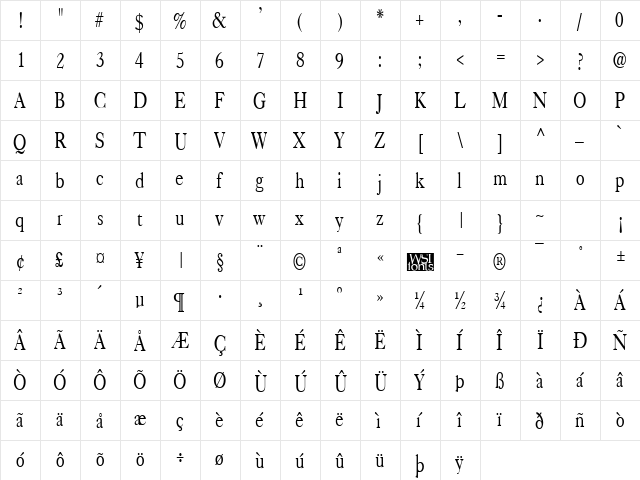
CasqueCondensed Regular
Design Context for CasqueCondensed Typeface
CasqueCondensed offers clean, dependable letterforms without strong stylistic allegiance, making it a practical choice for designers who need flexibility. Its narrow stance lets it pack a punch even in space-constrained designs.
Pro Tip: Pair CasqueCondensed with a font of contrasting weight or personality to build a more expressive typographic hierarchy.